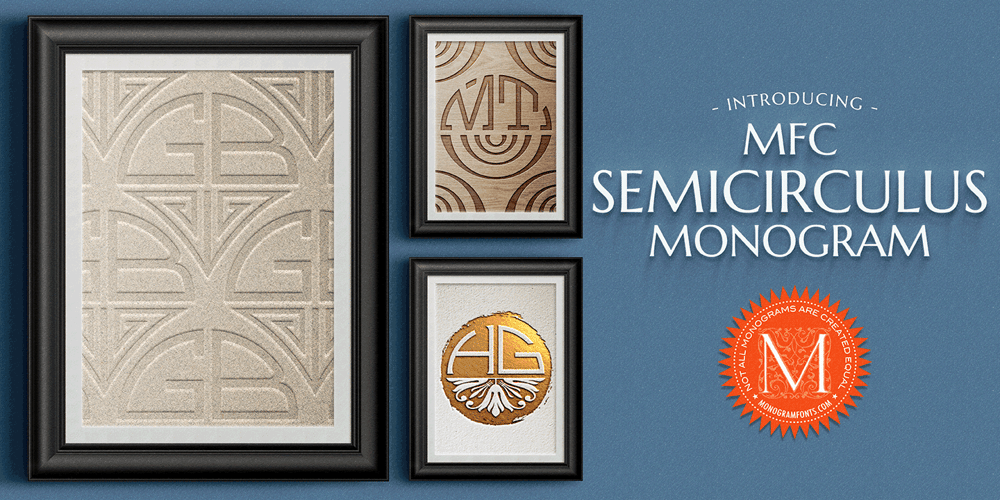
MFC Semicirculus Monogram
MFC Semicirculus Monogram font
MFC Semicirculus Monogram Font Family was designed by Brian J. Bonislawsky and published by Monogram Fonts Co.. MFC Semicirculus Monogram contains 4 styles and family package options. The inspiration source for Semicirculus Monogram is a stylish sans serif letterset from a vintage embroidery publication which combines to create a semi-circular form monogram. Originally intended to adorn handkerchiefs, it has so many other possibilities. Ornaments from numerous antique specimen books were combined with the letter set to accent and complete its form. This is one of many monogram designs for the early 1900s which fall into a two letter format that is either adorned or interwoven with ornamentation. Download and view the MFC Semicirculus Monogram Guidebook if you would like to learn a little more.